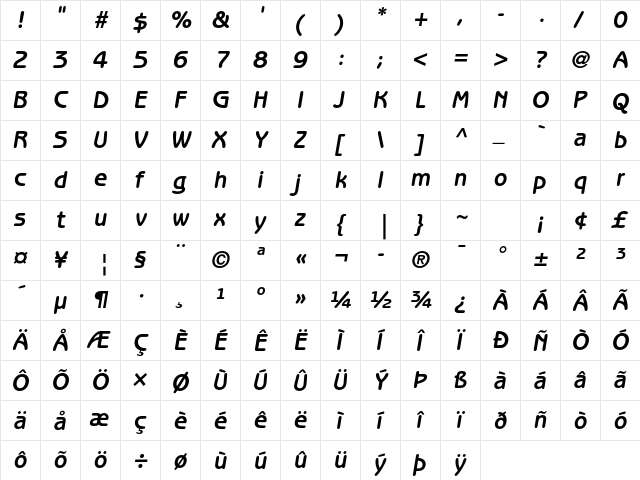
ITC Benguiat Gothic Std Bold Oblique Font Preview
| Designer | Ed Benguiat |
Design Context for ITC Benguiat Gothic Std Typeface
ITC Benguiat Gothic Std takes a clean, functional approach — its unadorned letterforms prioritise legibility and work reliably across screen and print environments. The dynamic lean of this cut emphasises speed and emphasis in any layout. The heavy weight commands attention and anchors typographic hierarchies.
A strong choice for UI design, app interfaces, bold signage, and corporate brand systems.
Font Pairing: Use ITC Benguiat Gothic Std for headlines alongside a lighter-weight sans or serif for body copy to establish clear visual hierarchy.
Pro Tip: Pair ITC Benguiat Gothic Std with a display or serif font for headlines — its neutral character makes it an excellent supporting player in complex typographic systems.